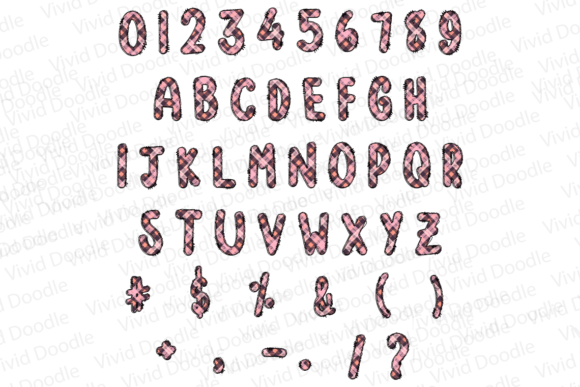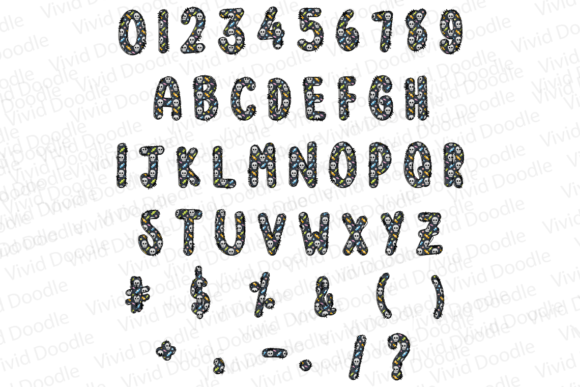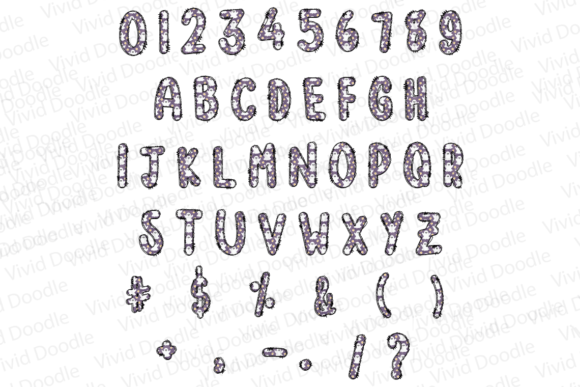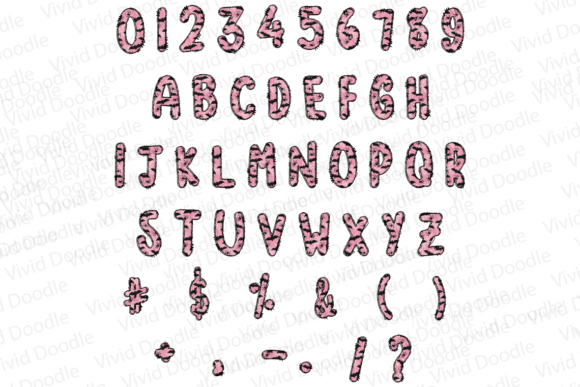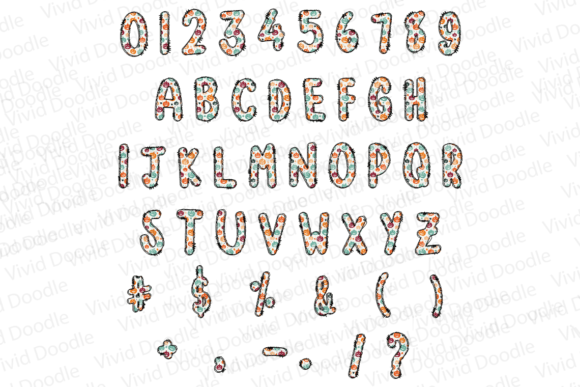
Get Ready to Cast a Spell with Your Halloween Designs
As the leaves turn golden and the air grows crisp, you know that Halloween is just around the corner. It’s the perfect time to unleash your creativity and get crafty with your favorite spooky projects. But let’s face it – sometimes, the right font can make all the difference between a good design and a truly magical one.
That’s where Fancy Halloween Font comes in – a playful and stylish typeface designed to elevate your Halloween-themed projects. This enchanting font brings together spooky charm and elegant flair, making it perfect for holiday decorations, school projects, posters, and creative artwork. Whether you’re designing invitations for a Halloween party or crafting festive classroom materials, Fancy Halloween Font adds the perfect touch of seasonal magic.
Fancy Halloween Font Key Features
- Unique Characteristics: Features intricate, hand-drawn designs with a mix of gothic and whimsical elements, perfect for adding a touch of Halloween magic to your designs.
- Kerning and Ligatures: Includes advanced kerning and ligature pairs for a more polished and professional look, ensuring that text flows smoothly and effortlessly.
Fancy Halloween Font Review
Overall, I’d say the Fancy Halloween Font is a fun addition to any spooky-themed project. Here are some things that work well: ✨
- High-quality vector graphics: The font’s intricate details and bold lines make it perfect for digital use.
- Great for titles and headings: The font’s large size and bold weight make it ideal for grabbing attention.
- Fun and playful: The font’s whimsical design is sure to add a touch of personality to any project.
- Not ideal for body text: While the font is great for titles and headings, it’s not the best choice for large blocks of text.
- May not be suitable for formal projects: The font’s playful design may not be suitable for formal or professional projects.
Overall, I’d say the Fancy Halloween Font is a great choice for anyone looking to add a touch of whimsy to their project. Just be sure to use it judiciously and in the right context.
To get the most out of the Fancy Halloween Font, try combining it with other spooky elements like bats, spiders, and jack-o-lanterns. You can also use the font to create a spooky title or heading for your Halloween design.
The Fancy Halloween Font is perfect for creating spooky invitations, party decorations, and Halloween-themed graphics. It’s also great for adding a touch of Halloween flair to your social media posts and website headers.